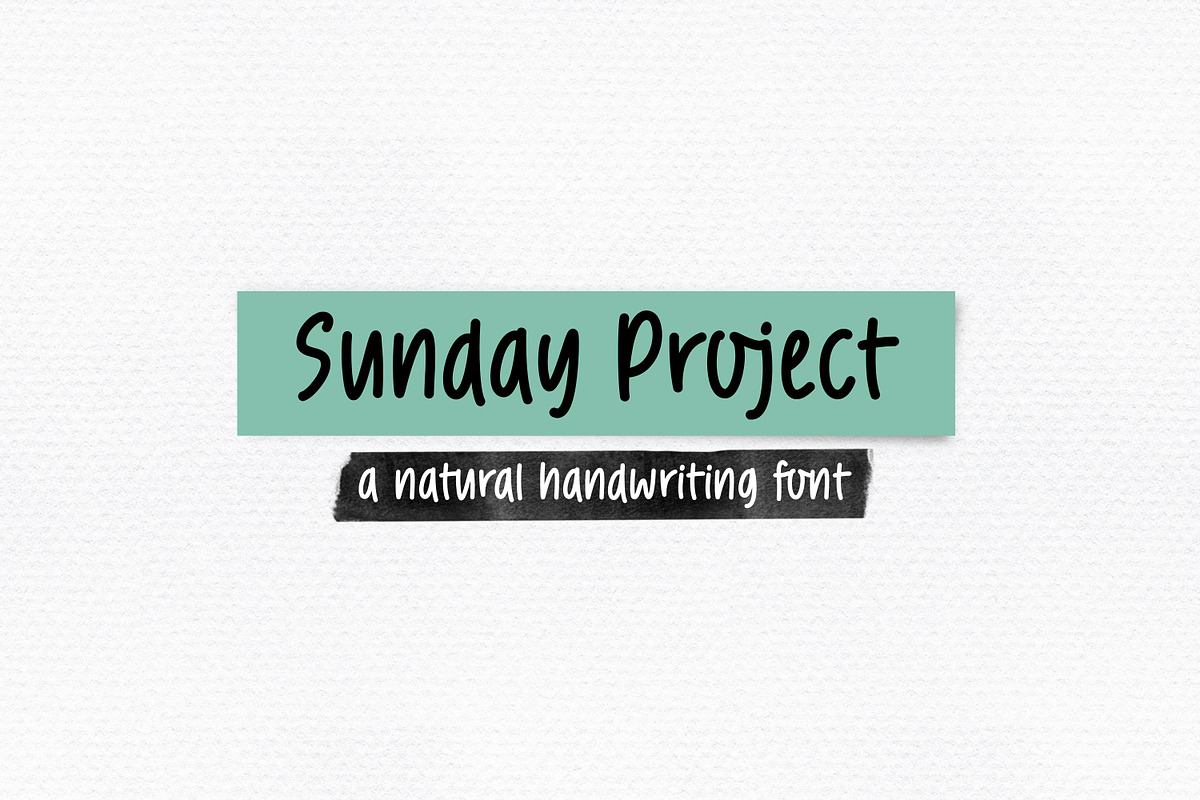
Sunday Project – Handwriting Font Free Download is a casual and cozy typeface that captures the feel of a relaxed weekend note or a creative journal entry. With its natural flow, organic curves, and personal charm, this font is perfect for planners, blog graphics, greeting cards, lifestyle branding, and social media posts that need a handwritten touch.
Sunday Project – Handwriting Font Free Download brings warmth and authenticity to your design work, offering a down-to-earth look that’s approachable yet stylish. Whether you're working on DIY crafts, digital stickers, or heartfelt quotes, this font adds a soft, personal vibe that connects.